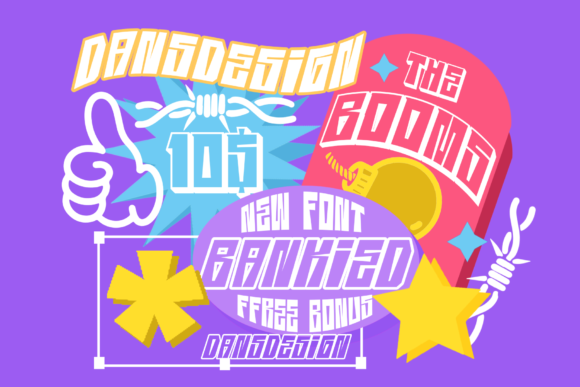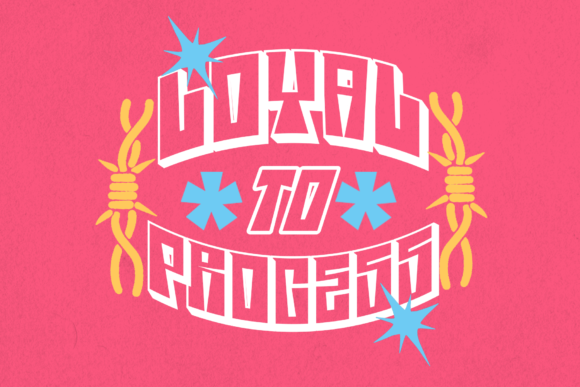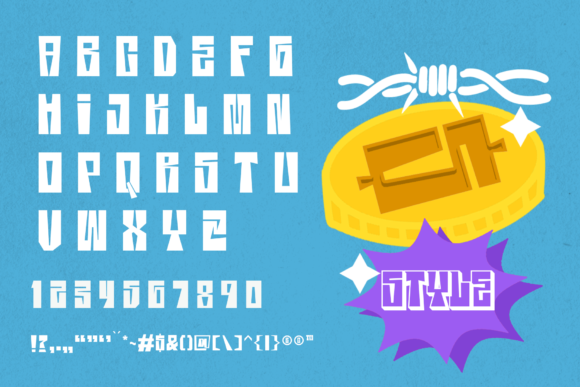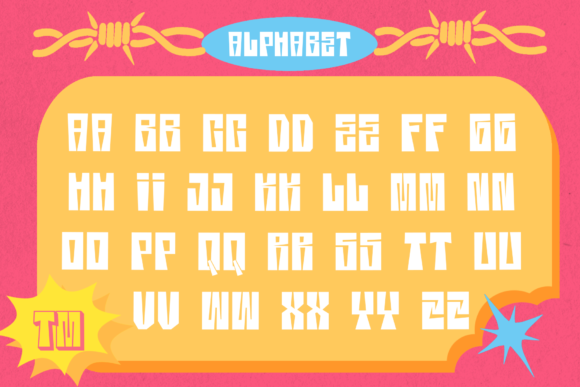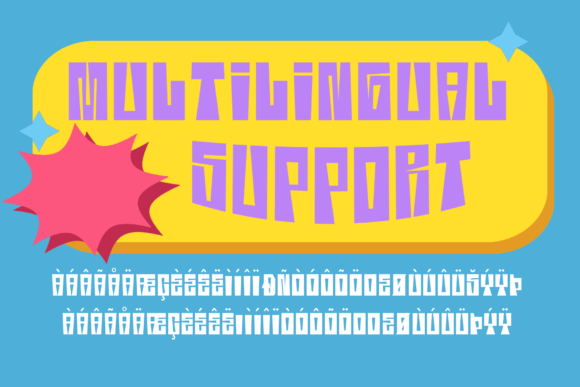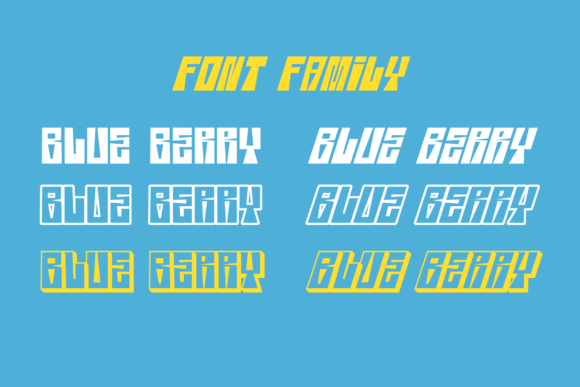
Introducing Bankied Font: The Ultimate Display Font for Creative Projects
Are you tired of using the same old fonts for your creative projects? Look no further! Bankied Font is here to revolutionize the way you approach typography. This chunky lettered and bold display font is designed to add a playful touch to your designs while making them stand out from the crowd.
What is Bankied Font?
Bankied Font is a unique and eye-catching display font that is perfect for designers, crafters, and anyone looking to add a personal touch to their projects. Its chunky letters and bold design make it ideal for creating attention-grabbing headlines, titles, and captions. Whether you’re working on a graphic design project, crafting a logo, or creating social media content, Bankied Font is sure to make your work pop.
Key Features of Bankied Font
- Chunky Lettering: Bankied Font features thick, chunky letters that are sure to grab attention.
- Bold Display: The font’s bold design makes it perfect for creating eye-catching headlines and titles.
- Playful Look: Bankied Font has a playful and fun vibe that’s perfect for creative projects.
- Easy to Read: Despite its bold design, Bankied Font is easy to read, making it perfect for use in a variety of applications.
Uses for Bankied Font
Bankied Font is versatile and can be used in a variety of creative projects, including:
- Graphic Design: Use Bankied Font to create eye-catching posters, flyers, and brochures.
- Logo Design: Create a bold and memorable logo for your business or brand.
- Social Media: Use Bankied Font to create attention-grabbing social media posts and captions.
- Crafting: Add a personal touch to your crafting projects, such as handmade cards and gift tags.
Benefits of Using Bankied Font
By using Bankied Font, you’ll be able to:
- Add a Personal Touch: Bankied Font’s unique design allows you to add a personal touch to your projects.
- Stand Out: The font’s bold design ensures that your projects will stand out from the crowd.
- Save Time: Bankied Font is easy to use and doesn’t require any special design skills.
Tips for Using Bankied Font
Here are a few tips for getting the most out of Bankied Font:
- Use it Sparingly: Bankied Font is bold and eye-catching, so use it sparingly to avoid overwhelming your design.
- Experiment with Colors: Try pairing Bankied Font with different colors to create a unique and eye-catching design.
- Mix and Match: Combine Bankied Font with other fonts to create a unique and interesting design.
Bankied Font is a versatile and eye-catching display font that’s perfect for designers, crafters, and anyone looking to add a personal touch to their projects. Its chunky letters and bold design make it ideal for creating attention-grabbing headlines, titles, and captions. With its ease of use and flexibility, Bankied Font is sure to become a staple in your design toolkit.